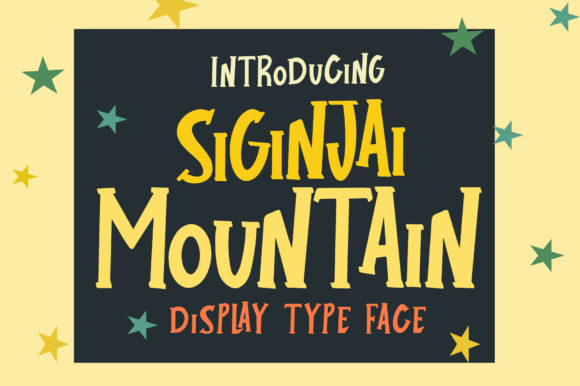
Unleash the power of Siginjai Mountain, the assertive and authentic serif font that will empower your designs. Crafted by the masters at isolatype, Siginjai Mountain is more than just a font – it's an investment in your creative arsenal.
With its bold letters and confident stance, Siginjai Mountain commands attention. Its sharp edges and elegant curves exude a timeless charm that will elevate your creations to new heights. Whether you're crafting logos, designing brochures, or creating social media graphics, Siginjai Mountain will add a touch of sophistication and impact to your work.
Beyond its visual appeal, Siginjai Mountain is also a font of endless versatility. Its wide range of weights and styles allows you to adapt it seamlessly to any project, from delicate invitations to powerful marketing campaigns. The possibilities are limitless, making Siginjai Mountain an indispensable tool for any designer.
If you're seeking a font that will make a bold statement and leave a lasting impression, look no further than Siginjai Mountain. Its assertive presence and undeniable charm will captivate your audience and elevate your designs to new heights.